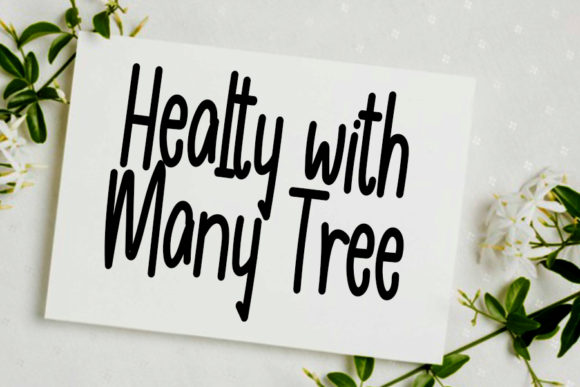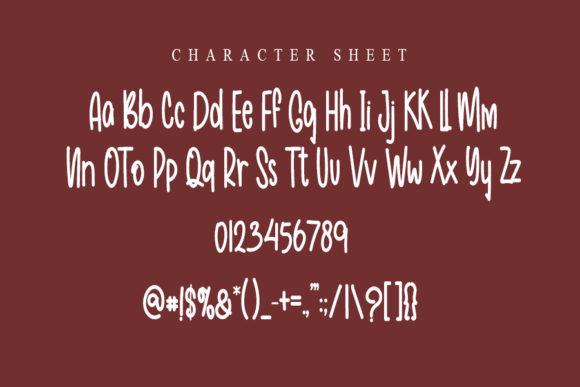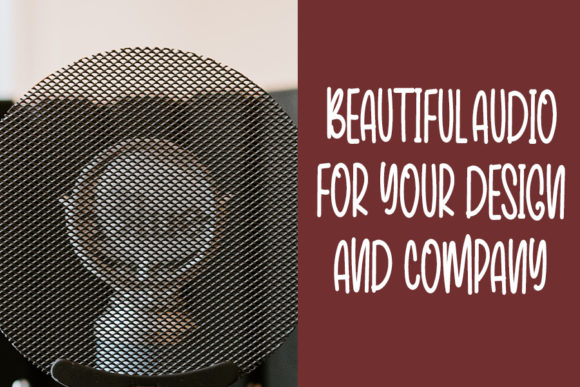
About Closaile Font
Sweet Home is a sweet and quirky handwritten font. Dainty and joyful, this font will be ideal for writing neat cards or any other design that may need a personalized touch!